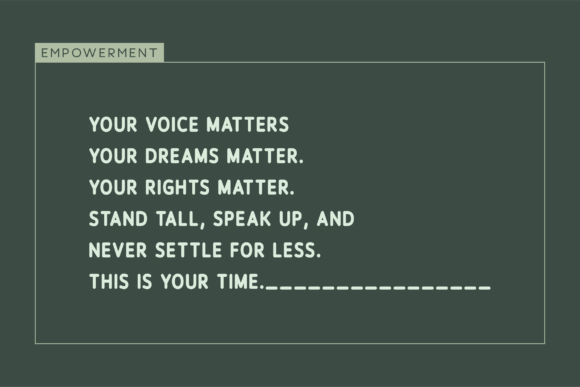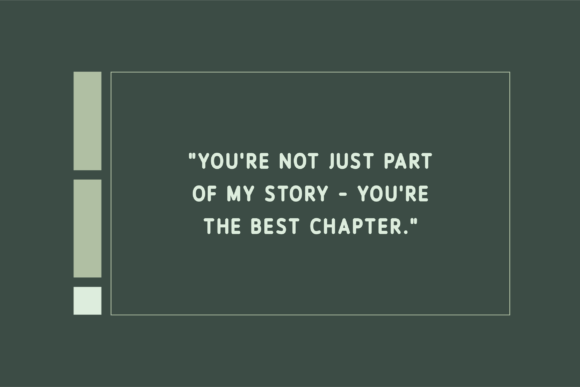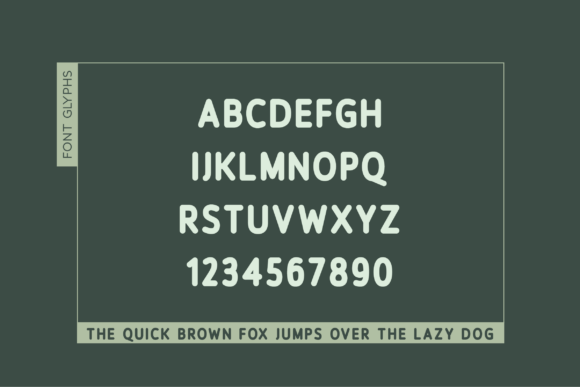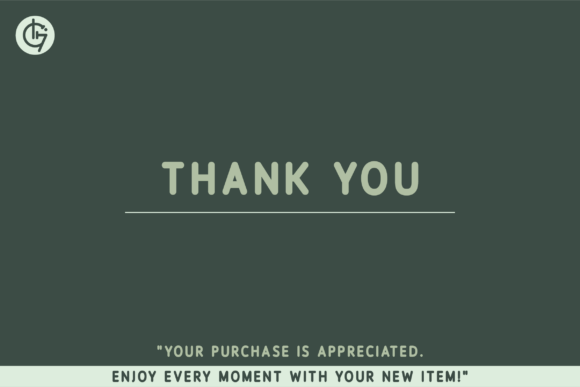
Introduction to Gtormind Font
Introducing Gtormind, a refreshingly eccentric all-caps font bursting with personality.
Consisting of capital letters A-Z, numbers 0-9, punctuation marks, and a range of accented characters, it boasts a comprehensive design versatility This font exudes a vibe that is effortless yet sophisticated, a perfect fit for social media platforms or handcrafted creations.
Key Features of Gtormind Font
Why Choose Gtormind Font?